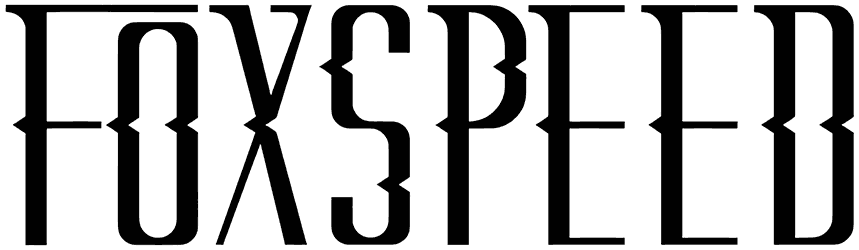
Foxspeed Font
If you are a fan of cool and energetic visuals, this distorted font can be interesting for you. The letters of the Foxspeed font are tall and condensed, and you can use them for different contemporary projects, like a car racing flyer. This retro font doesn’t support numerals and punctuation marks, but we invite you to add it to your library and test it for your innovative projects.